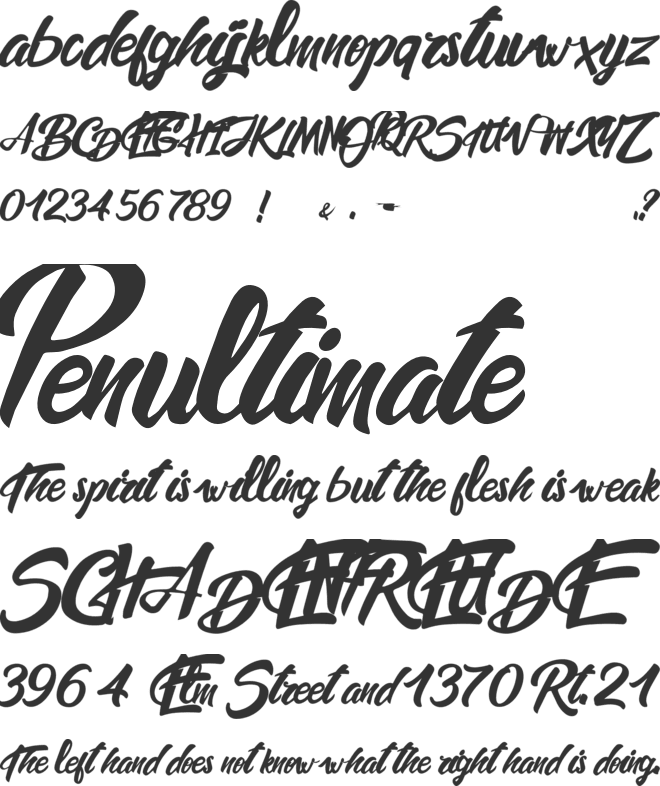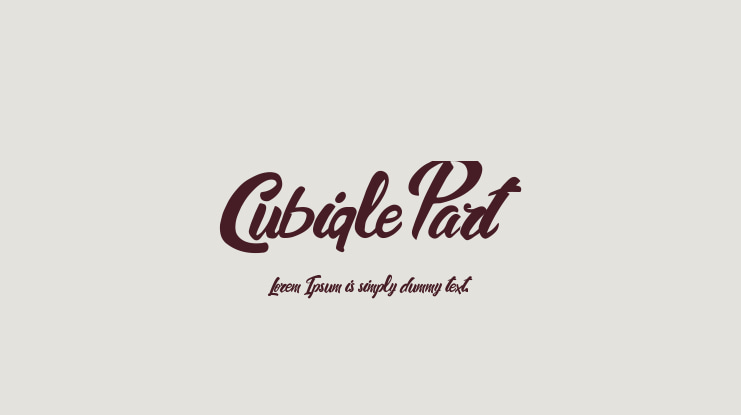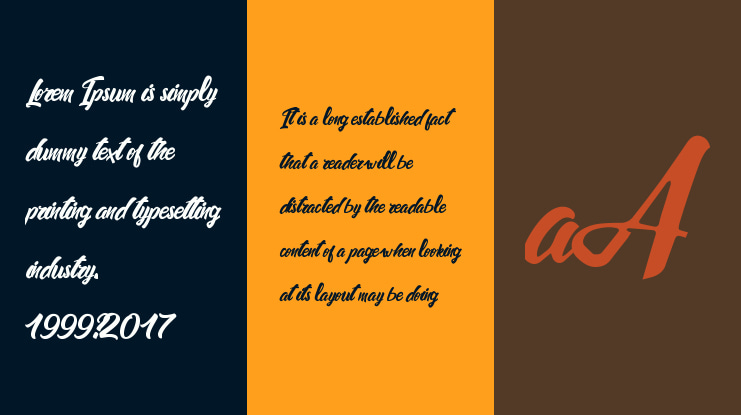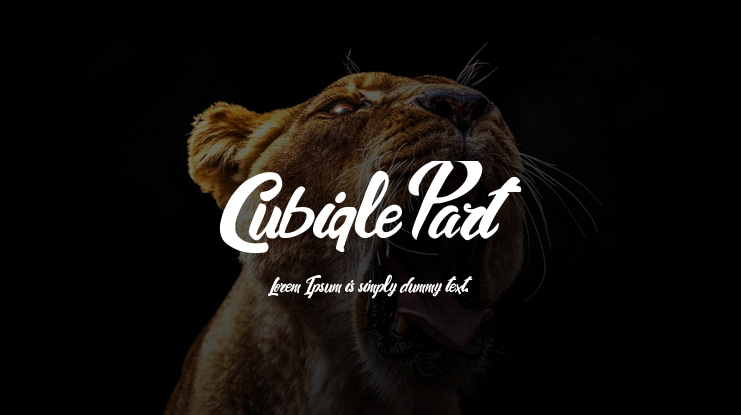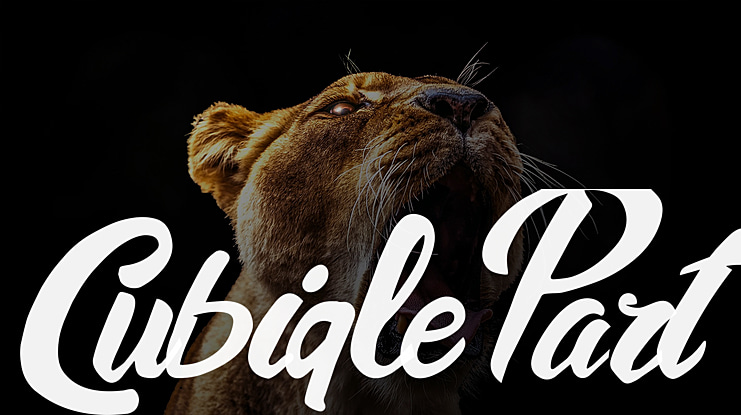
Cubiqle Part Font
Cubiqle Part is custom font mainly for creating custom logos.
The font has many custom glyphs created as a ligature for easier use in mobile programs
The ligature syntax is: [Letter]*[Number] Ex. t*3 Ex.2 L*2 In word: Ex. L*2etter Ex.2 N*2at*5i*1on*1
Special codes: *nt* *the*